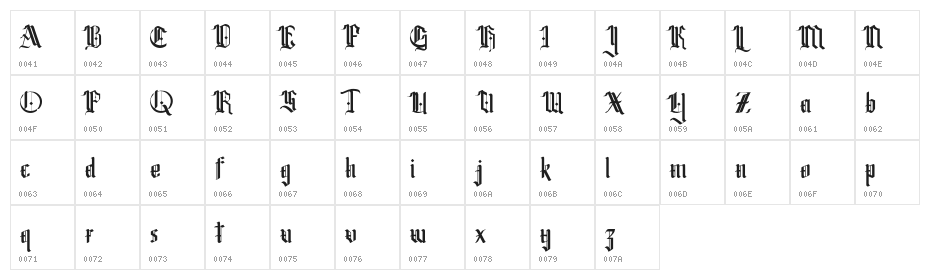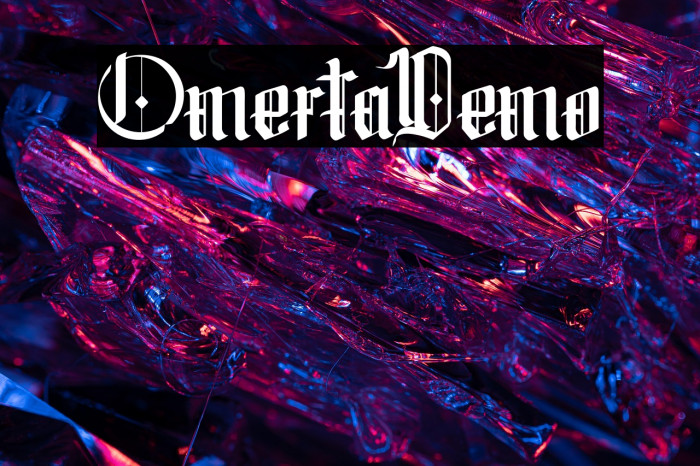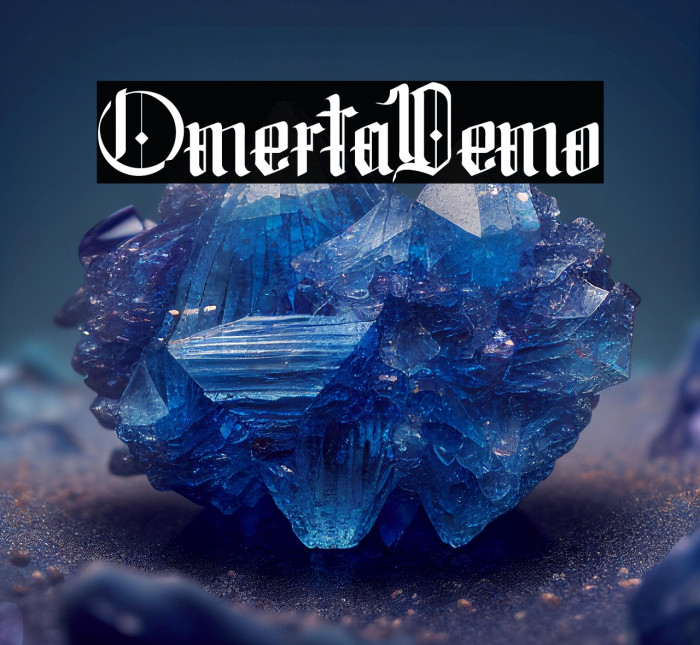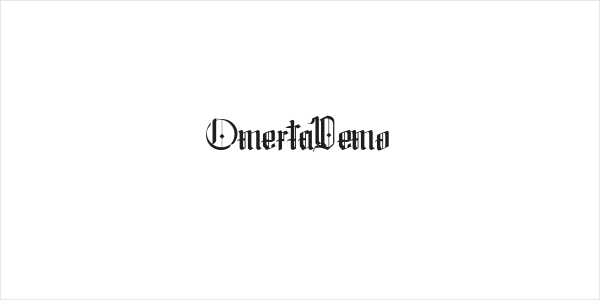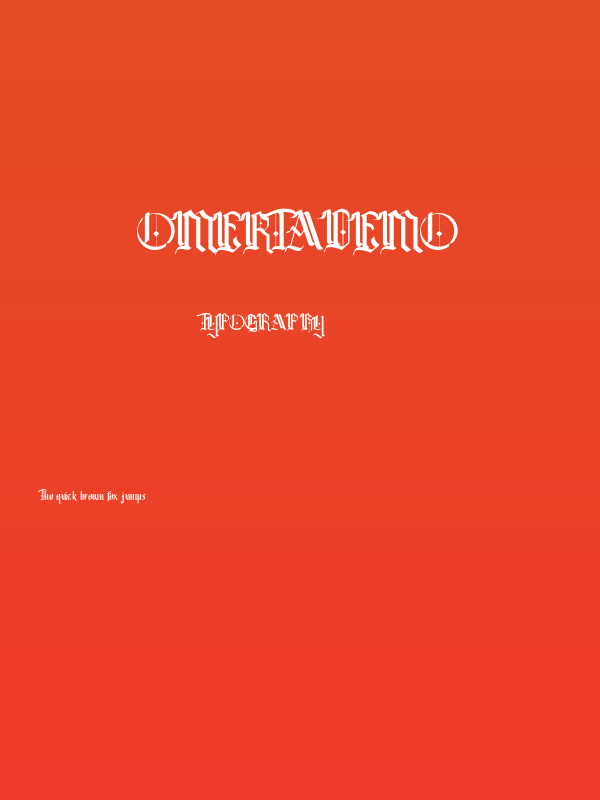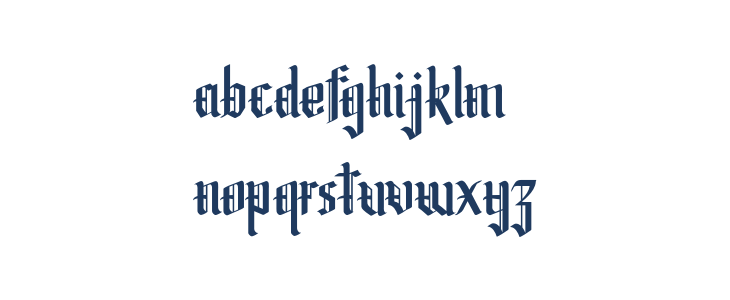
OmertaDemo Font
OmertaDemo Description
This font is a striking example of Blackletter typography, characterized by its intricate and ornate design. The letters feature sharp, angular lines with dramatic flourishes, creating a sense of historical gravitas and elegance. The uppercase letters are particularly elaborate, with extended serifs and decorative elements that evoke a medieval manuscript aesthetic. The lowercase letters maintain the same stylistic complexity, ensuring consistency across the typeface. The numbers and special characters are equally detailed, making this font suitable for projects that require a touch of historical or gothic flair. Its bold appearance and high contrast between thick and thin strokes make it stand out, ideal for creating a strong visual impact.
| Proposed Projects | Ideal for historical-themed designs, gothic posters, book covers, or branding that requires a medieval touch. |